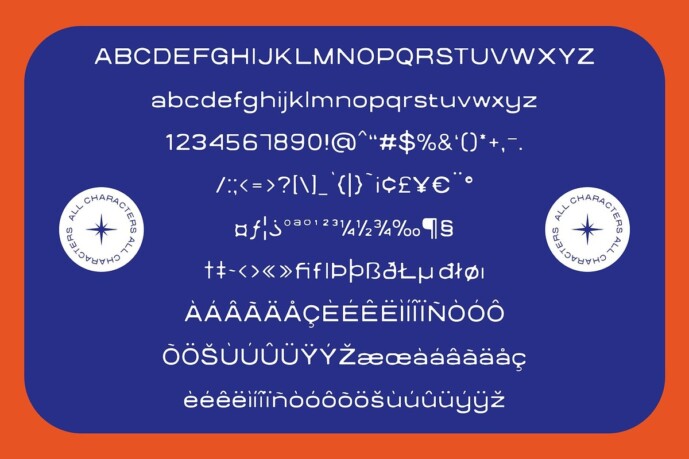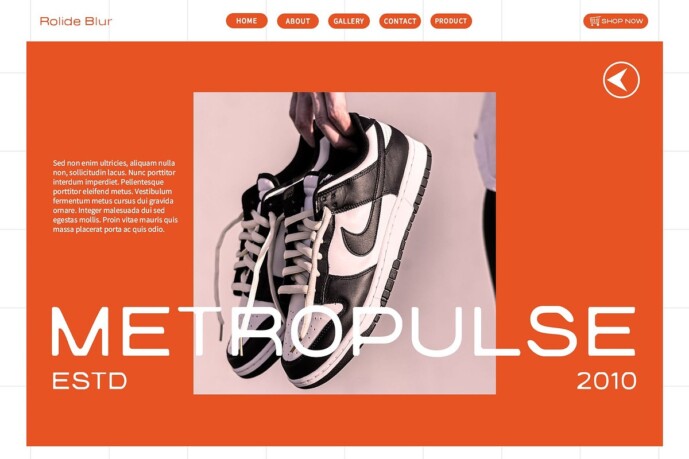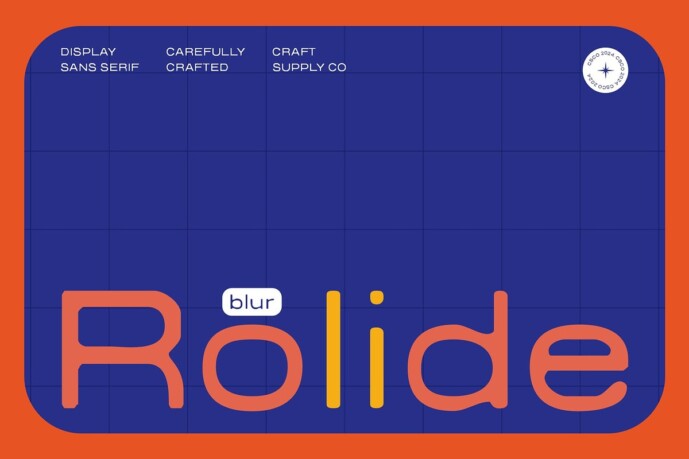
Rolide Blur Font
Rolide Blur Font is a modern sans-serif font with an expanded form and a blur effect that presents a wide and dynamic design. The blur effect adds a unique artistic touch, creating an attractive and contemporary appearance.
With its expanded form and blur effect, Rolide Blur is perfect for modern and experimental designs. This font ensures your projects stand out with an innovative and dynamic impression, making it suitable for posters, web headers, and branding projects aiming to showcase contemporary style.
Rolide Blur enhances posters and web headers with its wide and dynamic appearance. Its modern style and blur effect create an eye-catching visual appeal, ensuring your designs captivate attention and convey a sense of innovation.
Versatile and contemporary, Rolide Blur adapts seamlessly to branding projects. Whether used in digital or print media, this font provides a modern and experimental touch that enhances the overall impact of your branding efforts.